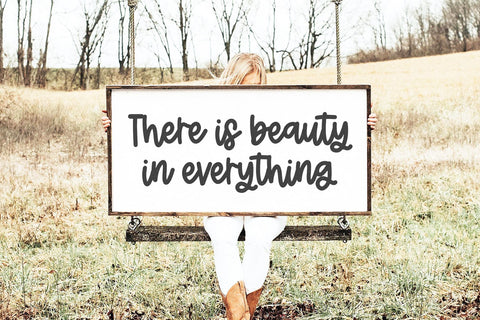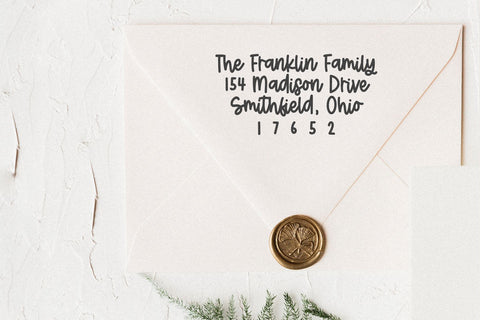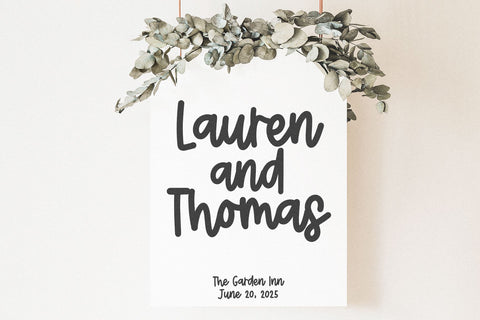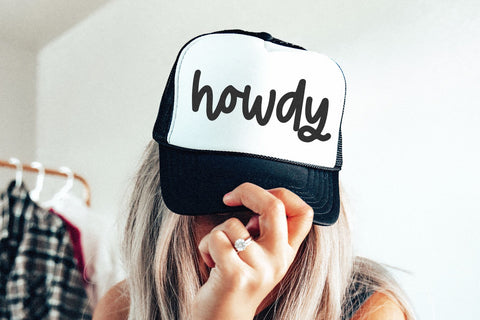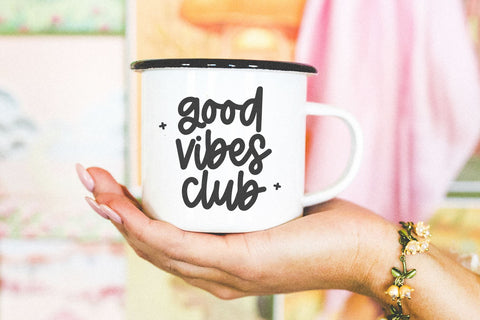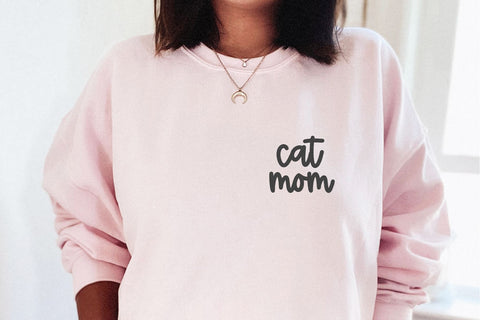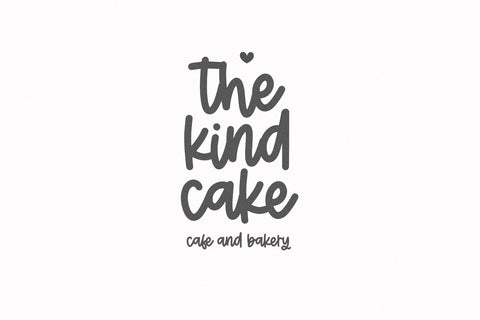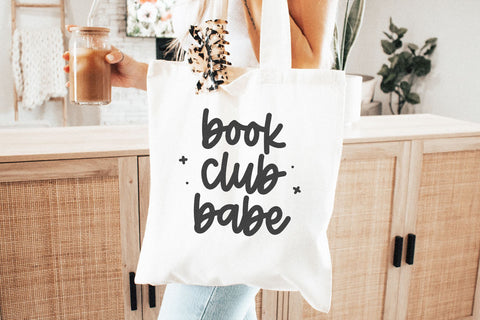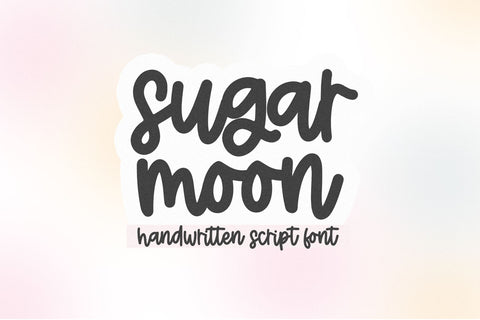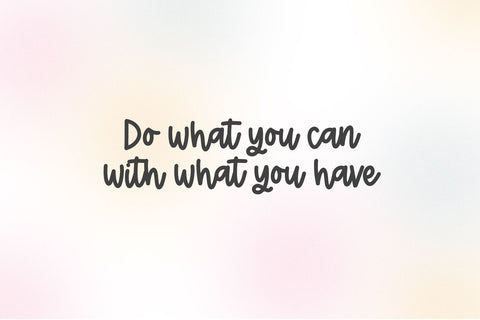
SugarMoon - Cute Script Font
SugarMoon is a cute handwritten script font!
This is the script portion from my SugarMoon Font Duo
This font is perfect for cricut projects, Canva, logos, shirts, stickers, lasers / glowforge projects, goodnotes, teachers, quotes, procreate and more!